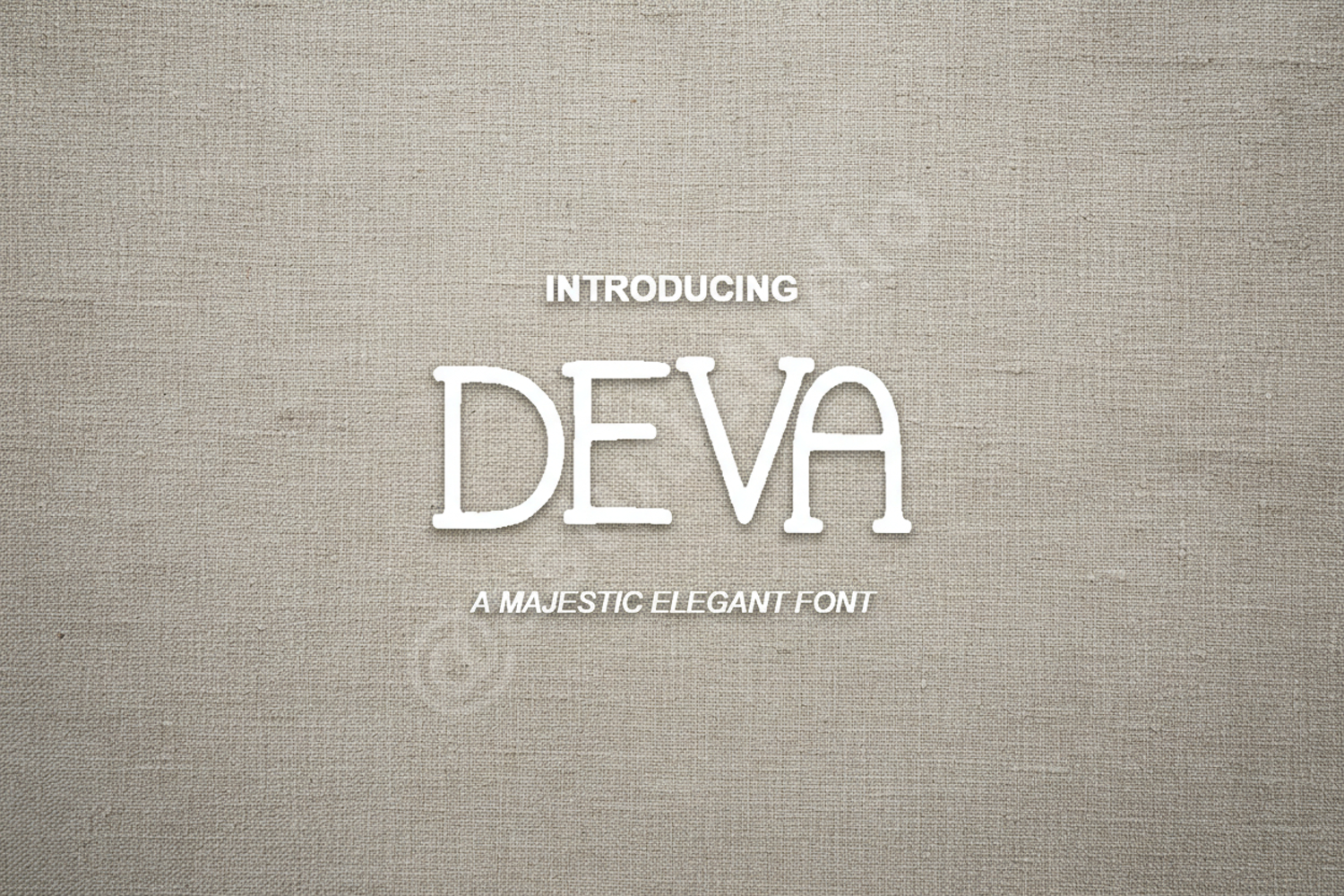
Deva - Elegant Modern Serif Display Font
Deva
Deva is a premium serif typeface that perfectly balances timeless elegance with modern sophistication. Designed for creators who demand high-quality aesthetics, Deva offers a clean and versatile look that elevates any design project to a professional standard. Its balanced proportions and refined curves make it a standout choice for both print and digital media.
- Luxury Branding and Corporate Identity
- High-end Editorial and Magazine Layouts
- Sophisticated Wedding Invitations and Stationery
- Minimalist Logo Design and Wordmarks
- Elegant Social Media Graphics and Quotes
- Premium Website Headers and Hero Images